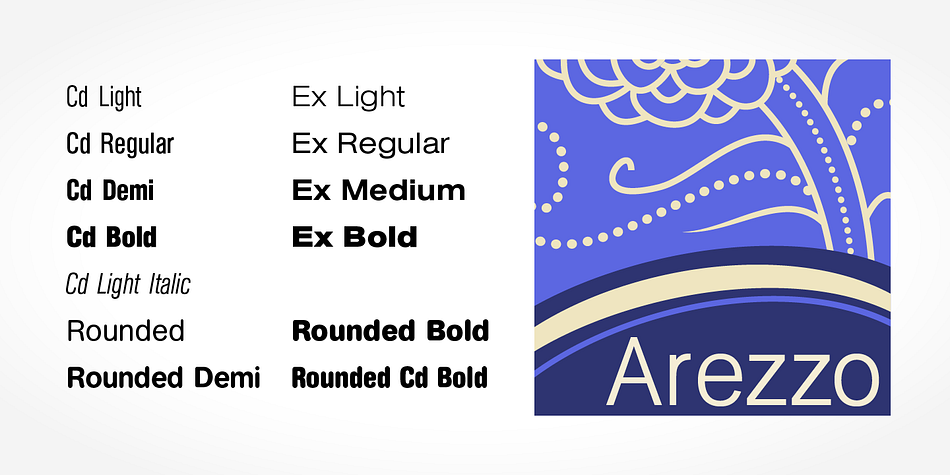
Arezzo Pro
Arezzo Pro is a sans serif font family. This typeface has twenty-four styles and was published by SoftMaker.
Arezzo Pro belongs to a tradition of general-purpose, unadorned sans-serif types that had become dominant in German printing during the nineteenth century. Relatively little-known for a half-century after its introduction, it achieved iconic status in the post-war period as the preferred typeface of many Swiss graphic designers